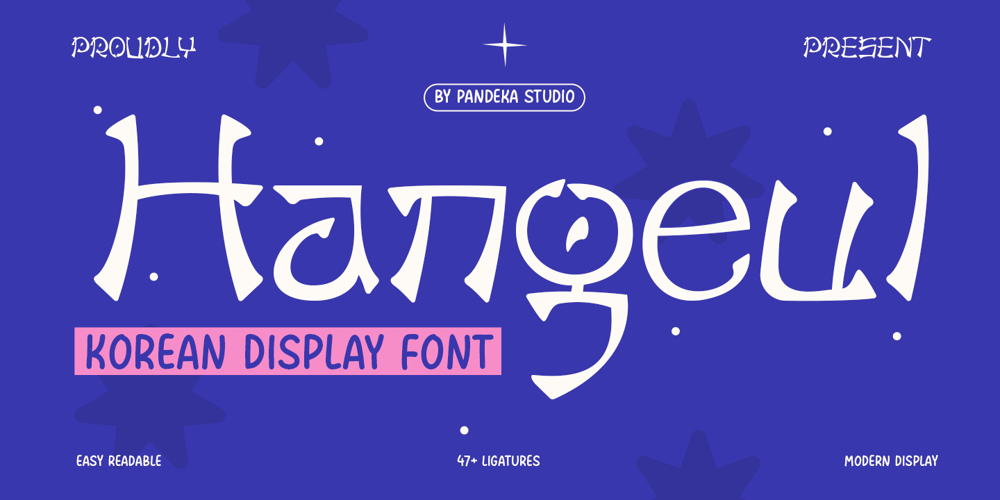
Hangeul Font Family was designed by Sagara Nararya and published by Pandeka Studio. Hangeul contains 1 styles and family package options. Hangeul – Korean Elegance in Every StrokeHangeul is a Korean display font that blends bold lettering with modern typography while embracing a traditional aesthetic. Inspired by Hangul style, it reflects the richness of cultural design in a unique typeface. Perfect for branding, logos, packaging, posters, event invitations, and editorial design, Hangeul adds a distinct, timeless charm to any project. ✨What’s Included: Main Files formats 1 Style: Regular Full Character Set: Uppercase, lowercase, numbers, symbols, and punctuation 47+ Ligatures and alternates Easy to Use: Works on both PC & Mac Compatible with Adobe Illustrator, Photoshop, Microsoft Word, Canva, and more PUA Encoded: Fully accessible without additional software Language Support: Danish, English, Estonian, Filipino, Finnish, French, Friulian, Galician, German, Gusii, Indonesian, Irish, Italian, Luxembourgish, Norwegian Bokmål, Norwegian Nynorsk, Nyankole, Oromo, Portuguese, Romansh, Rombo, Spanish, Swedish, Swiss-German, Uzbek (Latin)Korean Display Font Bold Lettering Modern Typography Traditional Aesthetic Hangul Style Cultural Design Unique TypefaceThank you and happy designing!Pandeka Studio